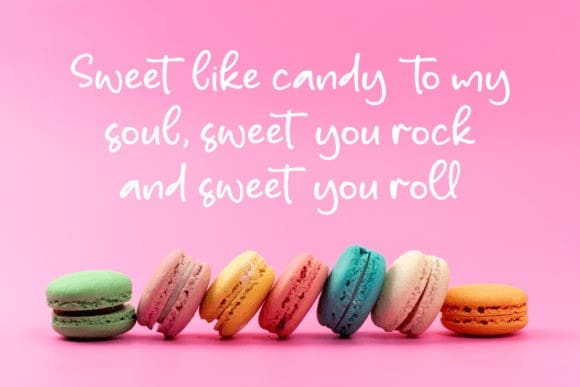
Hugshine Growter Font
Hugshine Growter Font – Playful Handwritten Font suitable for any projects such as logos, branding projects, homeware designs, product packaging, mugs, quotes, posters, shopping bags, t-shirts, book covers, name cards, invitation cards, greeting cards, labels, photography, watermark, special events, and all your other lovely projects that need a beautiful script taste.